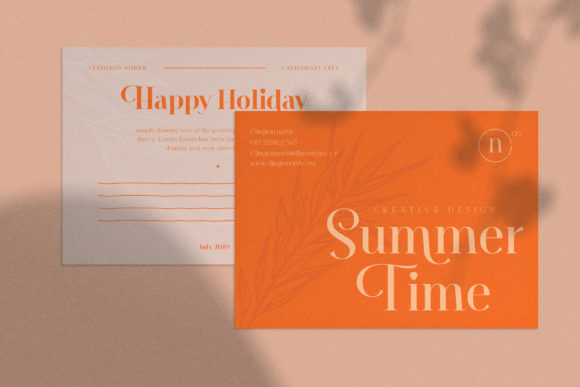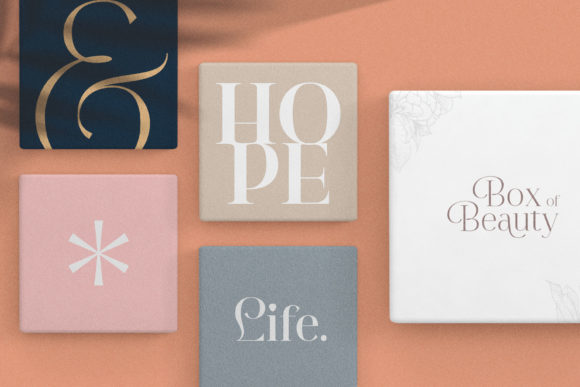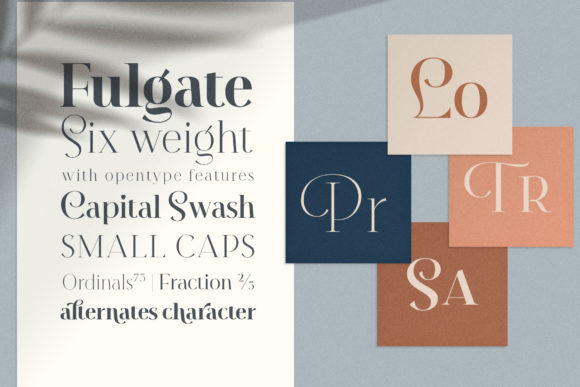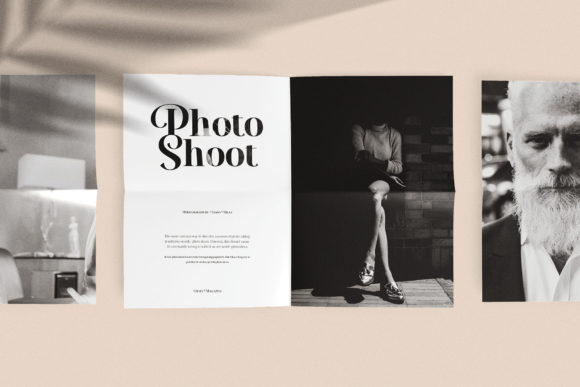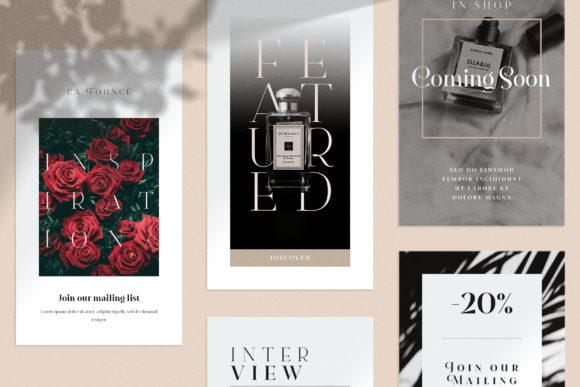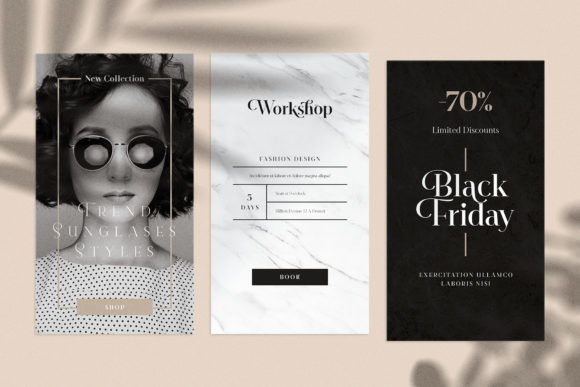
Fulagte Font: Elevate Your Design with Timeless Luxury
In the world of typography, few fonts have managed to strike a balance between simplicity and luxury. However, Fulagte Font is an exception. This truly iconic serif font is designed to add a modern sensibility to any design project, making it a sought-after choice among designers and crafters. In this article, we’ll explore the world of Fulagte Font, its features, and why it’s the perfect addition to your design arsenal.
The Story Behind Fulagte Font
Fulagte Font is more than just a collection of letters; it’s a design statement. Crafted with precision and attention to detail, this serif font exudes elegance and sophistication. The story behind Fulagte Font is one of passion and dedication. The creators aimed to design a font that would not only stand the test of time but also elevate the design game of anyone who uses it.
Key Features of Fulagte Font
- Timeless Design: Fulagte Font boasts a classic serif design that never goes out of style. Its clean lines and balanced proportions make it perfect for a wide range of design projects.
- Modern Sensibility: What sets Fulagte Font apart is its modern sensibility. It’s not just a traditional serif font; it has been crafted to feel contemporary and fresh.
- Versatility: Whether you’re working on a branding project, a website, or a print design, Fulagte Font adapts seamlessly. Its versatility is one of its most compelling features.
- Legibility: In today’s fast-paced digital world, legibility is crucial. Fulagte Font ensures that your message is conveyed clearly, whether it’s on a billboard or a business card.
Why Choose Fulagte Font?
With so many fonts available, why should Fulagte Font be your go-to choice? The answer lies in its ability to convey luxury and simplicity simultaneously. In a design landscape where standing out is increasingly difficult, Fulagte Font offers a unique blend of sophistication and modernity. It’s not just a font; it’s a design decision that can elevate your project from good to great.
Using Fulagte Font in Your Design Projects
Incorporating Fulagte Font into your design projects is straightforward. Here are a few tips to get you started:
- Pair it with Simplicity: Let Fulagte Font be the star of your design. Pair it with simple backgrounds or graphics to make it shine.
- Experiment with Sizes: Fulagte Font looks great in various sizes. Experiment with different sizes to see how it can add depth and interest to your design.
- Play with Colors: While Fulagte Font is stunning in black and white, don’t be afraid to experiment with colors. A bold color choice can make your design pop.
Fulagte Font in Digital and Print Design
Fulagte Font is incredibly versatile, making it suitable for both digital and print design. In digital design, it can add a touch of elegance to websites, apps, and digital marketing materials. In print, it’s perfect for luxury brands, high-end magazines, and any project that requires a touch of sophistication.
| Font Name | Fulagte Font |
Fulagte Font is more than just a font; it’s a design tool that can transform your projects. Its unique blend of luxury and simplicity makes it a valuable asset for designers and crafters looking to elevate their designs. Whether you’re working on a digital project or a print design, Fulagte Font is sure to add a modern sensibility that sets your work apart.